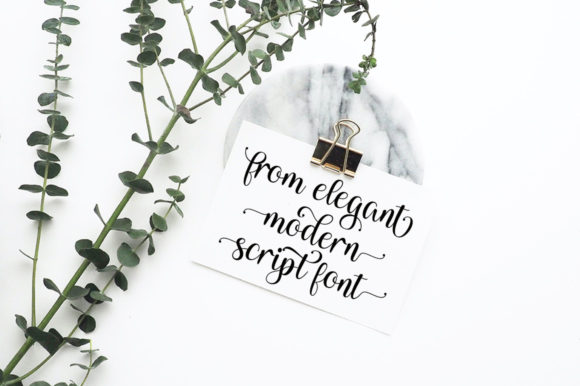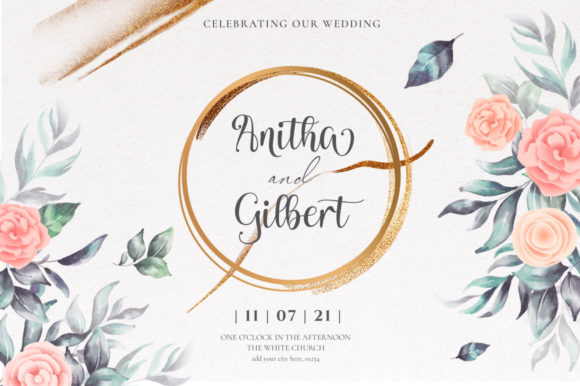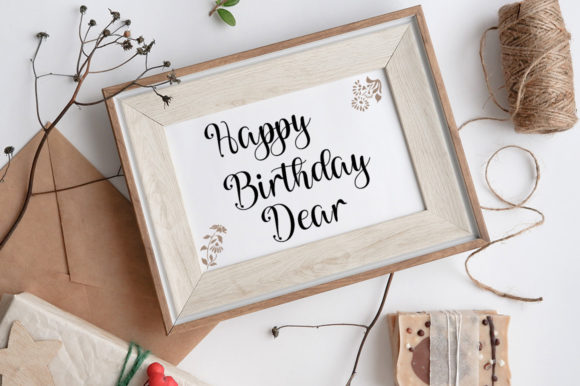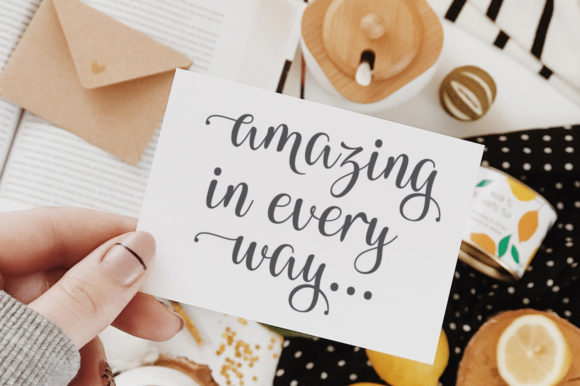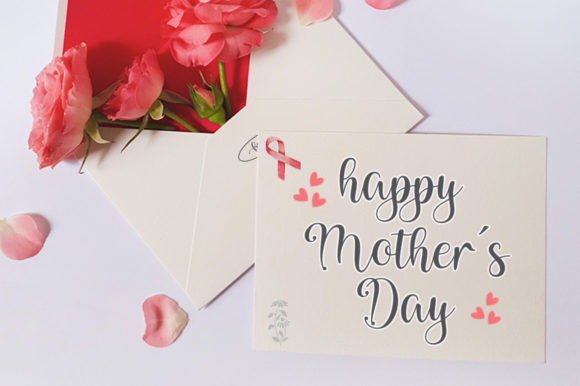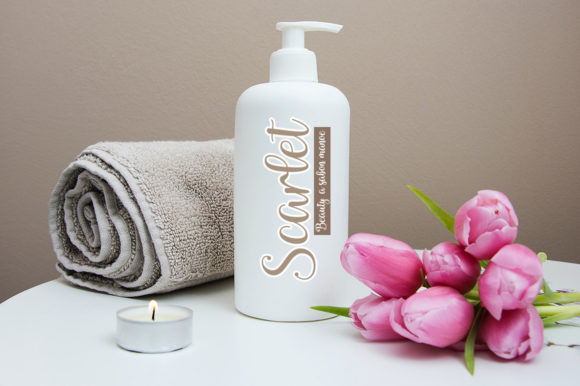
Introduction to Madisya Script Font
Have you ever been working on a creative project and struggled to find the perfect font to bring your vision to life? The right font can make all the difference in setting the tone and style of your design. For designers, finding a high-quality font that’s both versatile and visually appealing can be a game-changer.
That’s where the Madisya Script Font comes in – a stylish and dainty script font that’s perfect for any project that needs a touch of elegance. Whether you’re working on a logo, branding project, or special event, this font is a valuable design resource that can elevate your creative project to the next level.
With its PUA encoding, accessing all the glyphs and swashes is a breeze, making it a free download that’s sure to become a staple in your design toolkit. Plus, its transparent background makes it easy to layer and customize to fit your needs.
Key Features of Madisya Script Font
- High-quality, elegant script font perfect for creative projects, such as wedding invitations, logos, or signage.
- Features a unique, cursive design with a mix of modern and vintage elements, adding a touch of sophistication to any creative project.
Honest Review: Madisya Script Font
As a designer, I’m always on the lookout for high-quality design resources to elevate my creative projects. The Madisya Script Font is one such resource that caught my attention.
- ✨ Elegant and cursive design that’s perfect for adding a touch of sophistication to any project
- ✨ Highly customizable, with a wide range of font sizes and styles to choose from
- ✨ Great for creating engaging headings and titles in designs
- ⚠️ Limited font weights and styles compared to other script fonts
- ⚠️ May not be suitable for large blocks of text due to its cursive design
Overall, the Madisya Script Font is a great design resource that’s perfect for designers who want to add a touch of elegance to their projects. While it may have some limitations, its high quality and versatility make it a valuable addition to any design toolkit. Plus, it’s available for free download, making it an excellent choice for designers on a budget.
Tips for Getting the Most Out of Madisya Script Font
Use the Madisya Script Font in conjunction with a transparent background to create a beautiful and high-quality design. Experiment with different font sizes and styles to achieve the desired effect. You can also pair the font with other design elements, such as images or graphics, to create a unique and creative project.
The Madisya Script Font is ideal for a variety of creative projects, including invitations, greeting cards, and social media graphics. Its elegant and sophisticated design makes it perfect for wedding invitations, baby showers, and other special occasions.
What is the recommended font size for using the Madisya Script Font?
The recommended font size for using the Madisya Script Font is between 12pt to 24pt. However, you can adjust the font size to suit your design needs. Keep in mind that the font is designed to be elegant and sophisticated, so it may look best at larger font sizes. Experiment with different font sizes to find the perfect fit for your creative project.